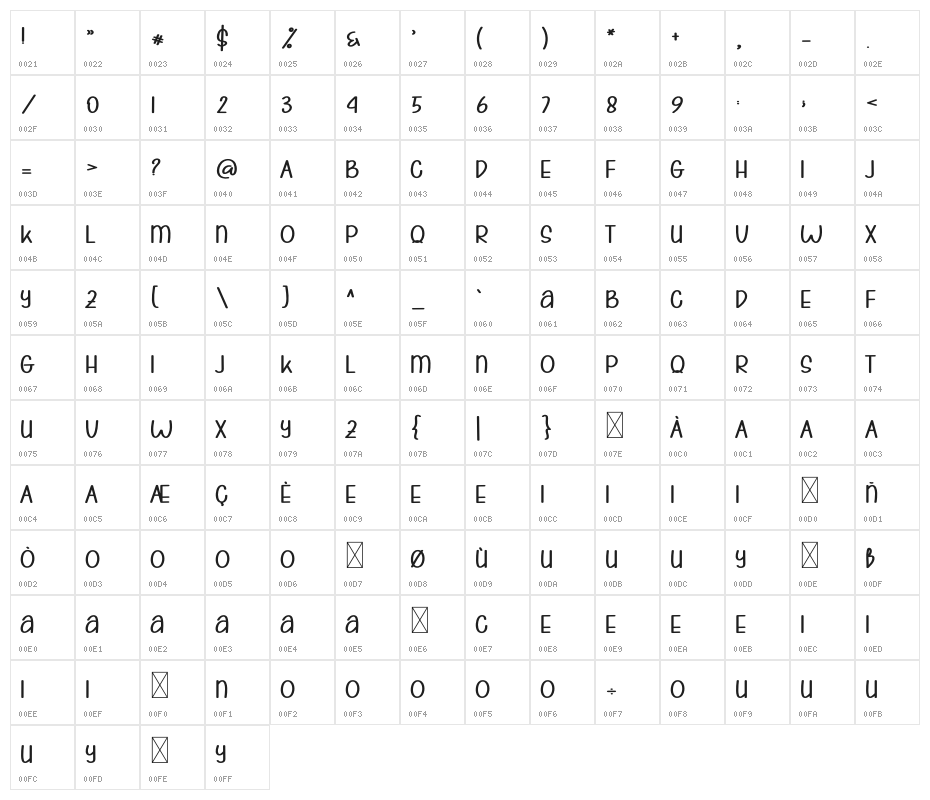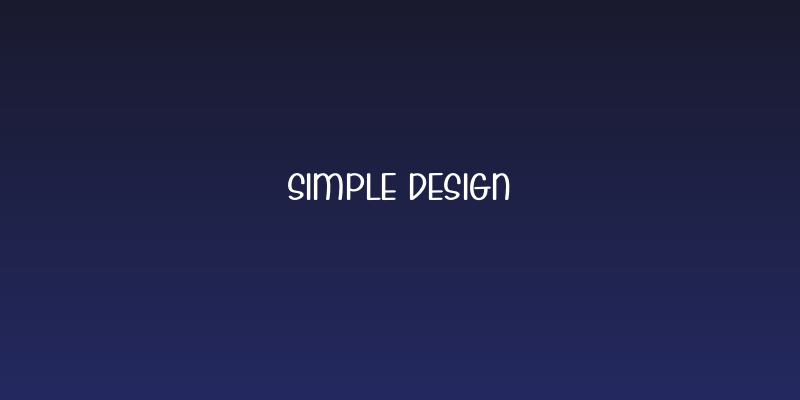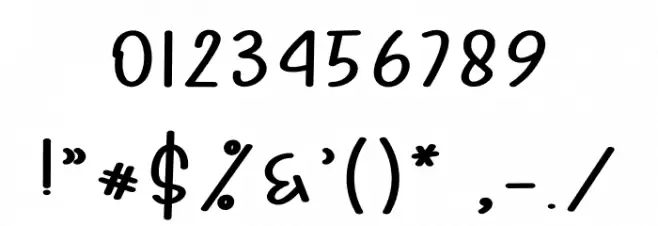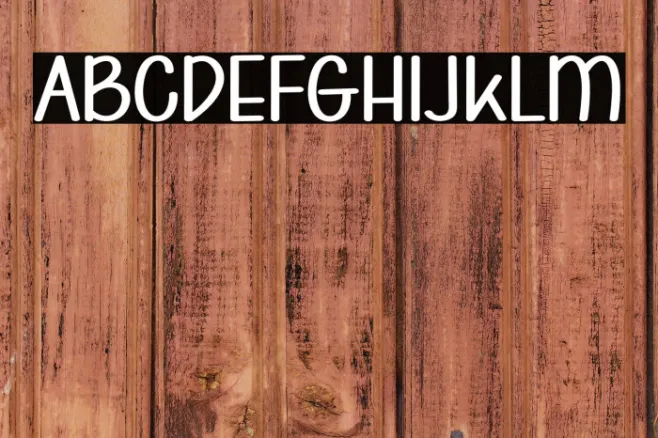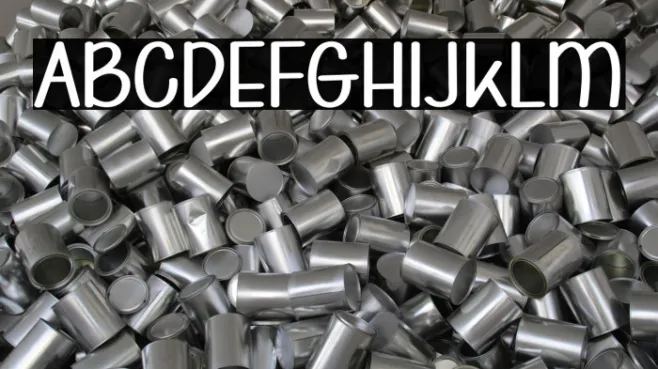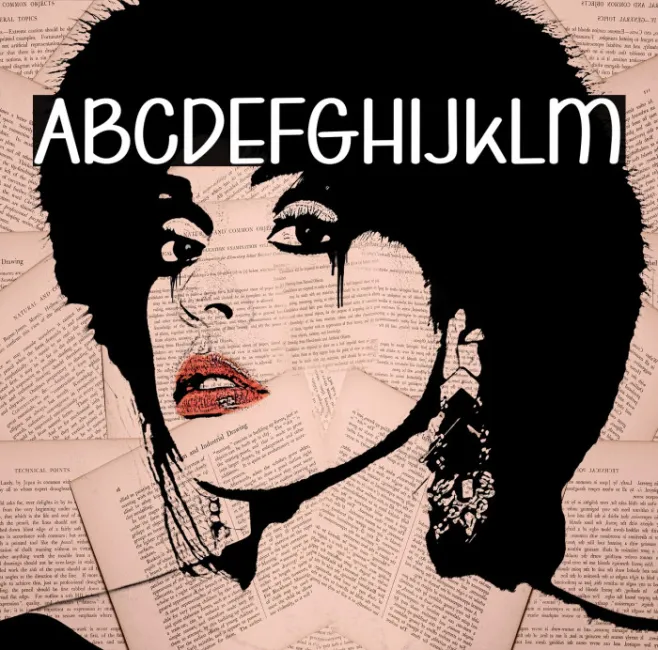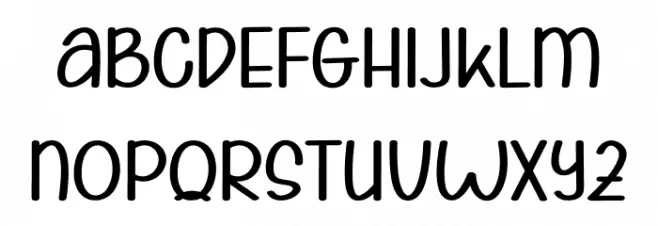
Simple Design Font
Simple Design Description
This font features a playful and rounded style, characterized by its smooth curves and slightly irregular shapes. The letters have a consistent stroke width, giving it a uniform appearance. The uppercase and lowercase letters maintain a friendly and approachable look, making it suitable for informal and creative projects. The numerals and special characters follow the same design principles, ensuring a cohesive look across all elements. The overall design is modern and whimsical, appealing to audiences looking for a fun and engaging typeface.